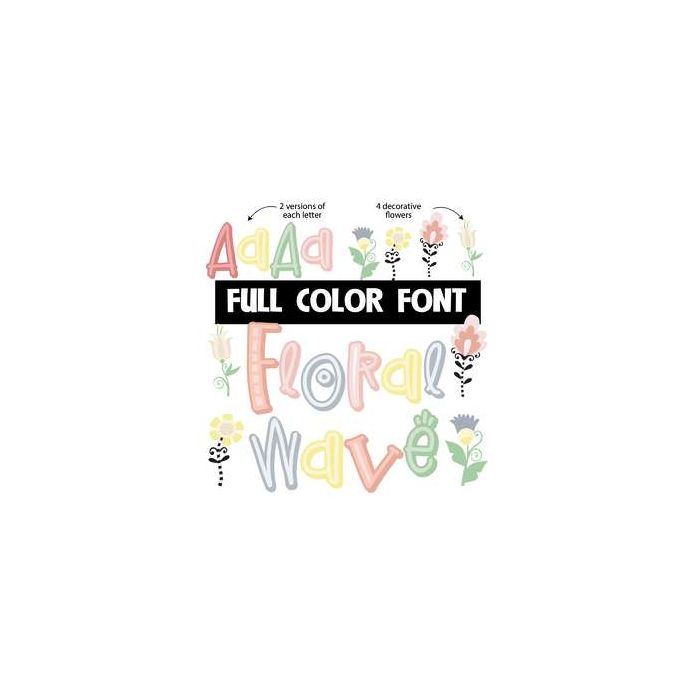
This full-color font features pastel letters and a few flowers you can access by typing triangle or rectangle brackets. There is an alternate upper and lowercase in different colors to help you keep your work creative looking. Access it through your system's character map or the glyph map in Silhouette Studio. This font works best for titles, displays, posters and more. Please note color fonts will show as black in non compatible programs. This font type is compatible with Silhouette Studio